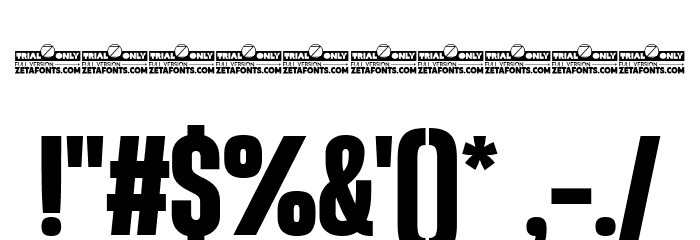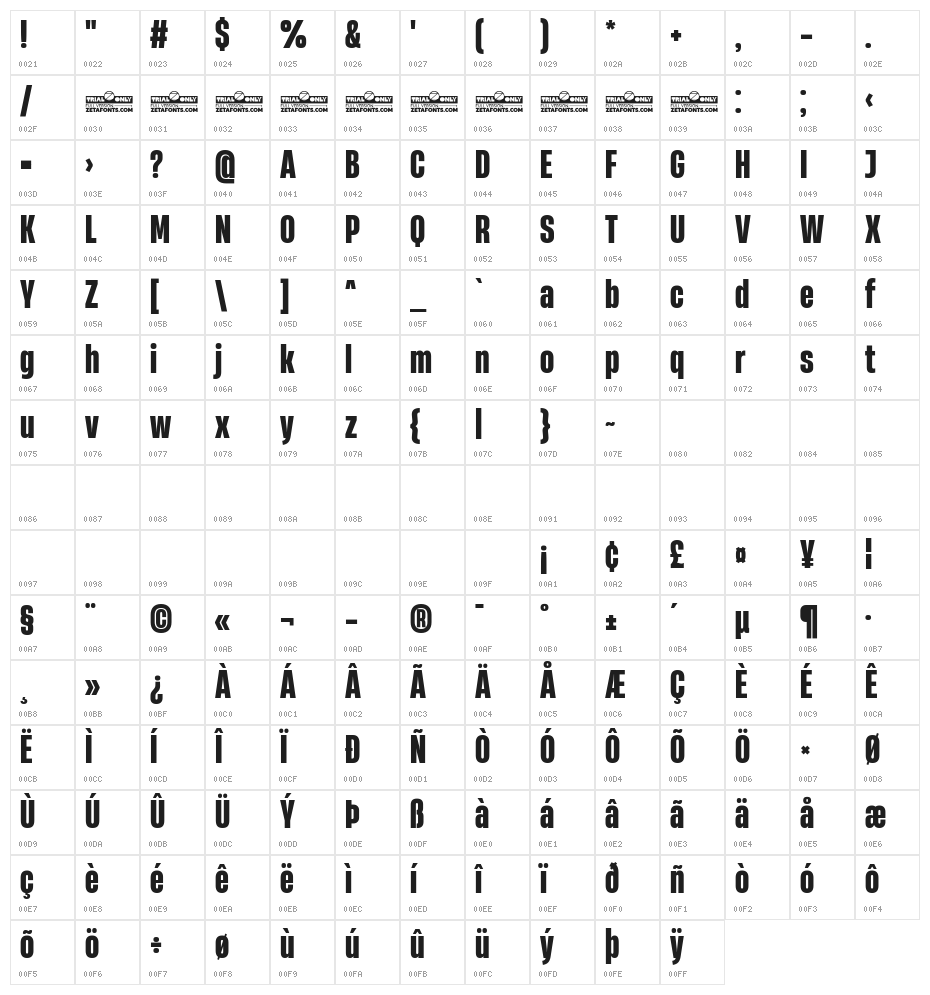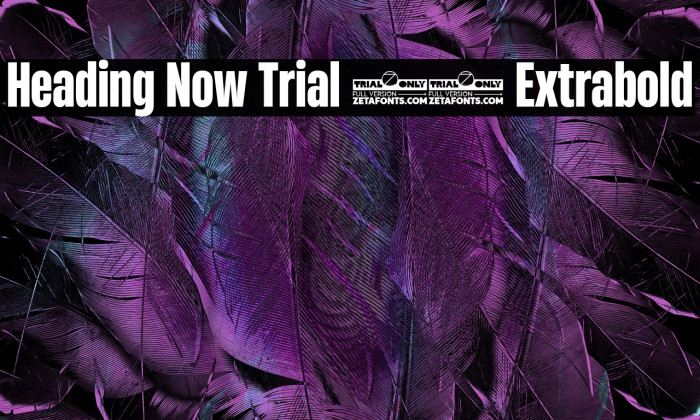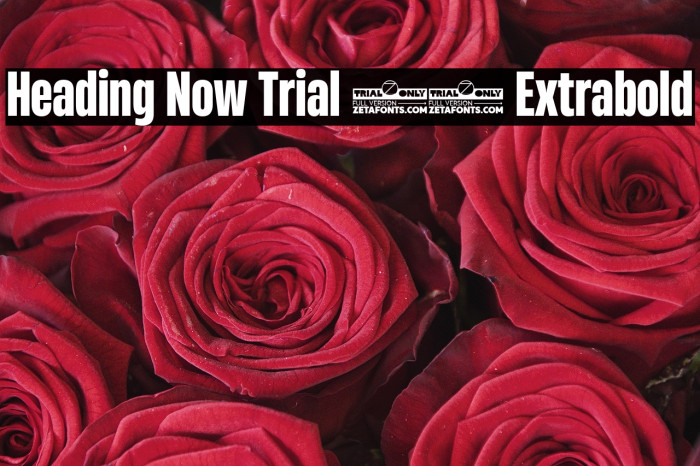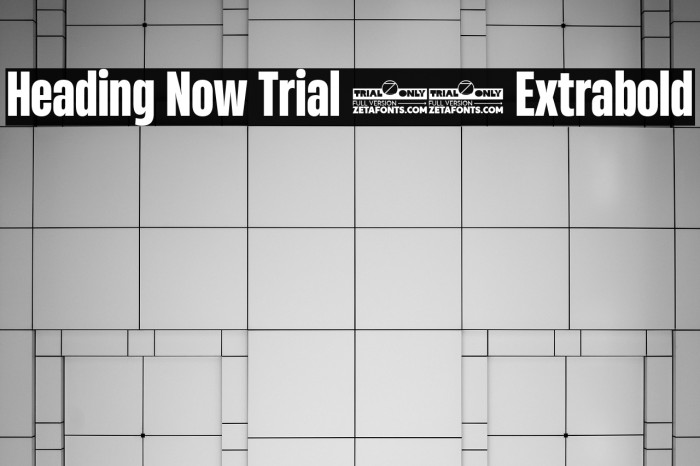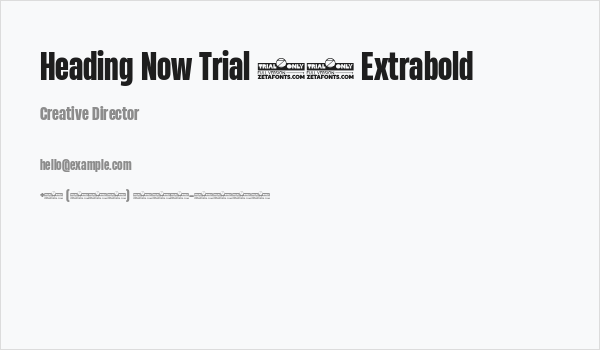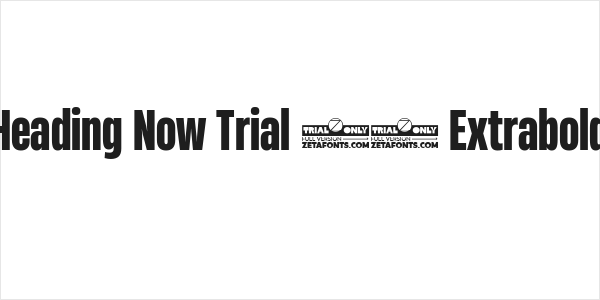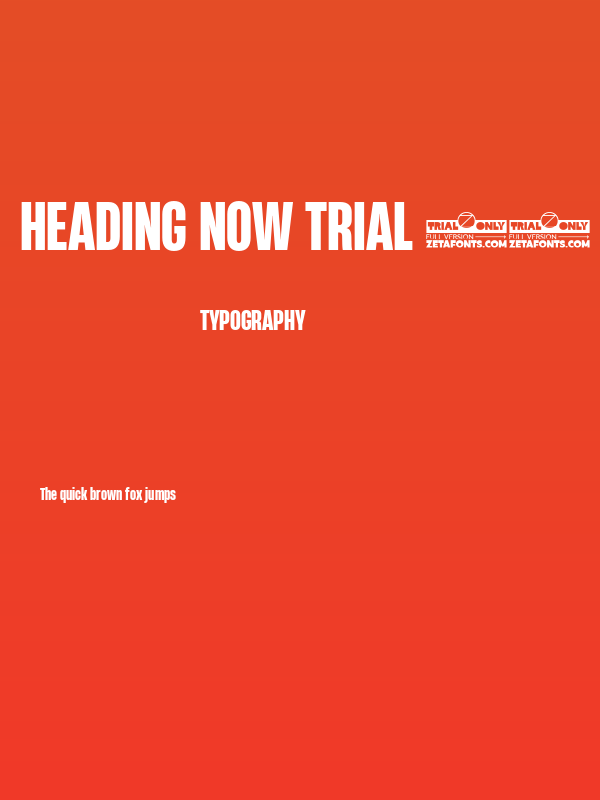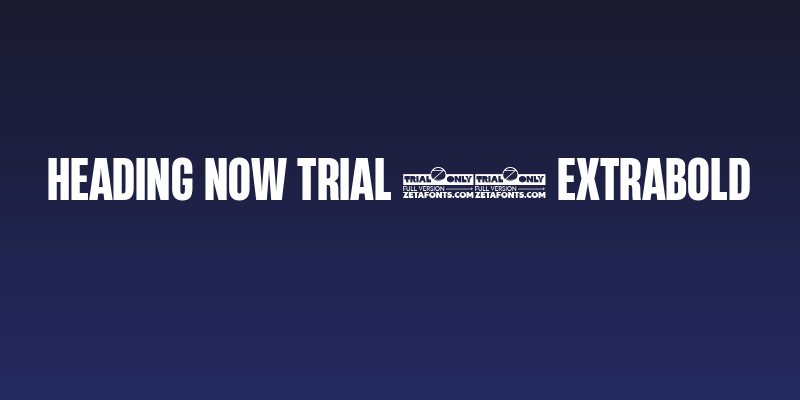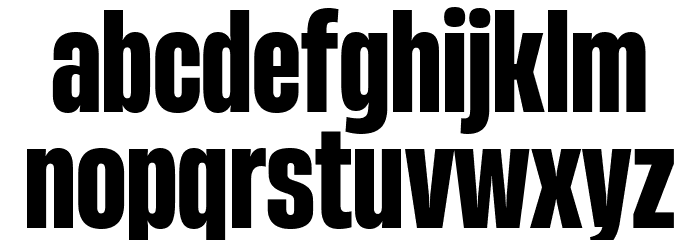
Heading Now Trial 47 Extrabold Font
Heading Now Trial 47 Extrabold Description
This font exhibits a bold and assertive style, characterized by thick, uniform strokes that convey strength and impact. The uppercase letters are tall and commanding, while the lowercase letters maintain a consistent weight, ensuring readability and balance. The numerals and special characters are designed to match the boldness of the alphabet, making them suitable for attention-grabbing displays. The overall appearance is modern and clean, with a focus on clarity and presence. This font is ideal for projects that require a strong visual statement.
| Proposed Projects | Ideal for headlines, posters, branding, and advertising where a strong visual impact is needed. |